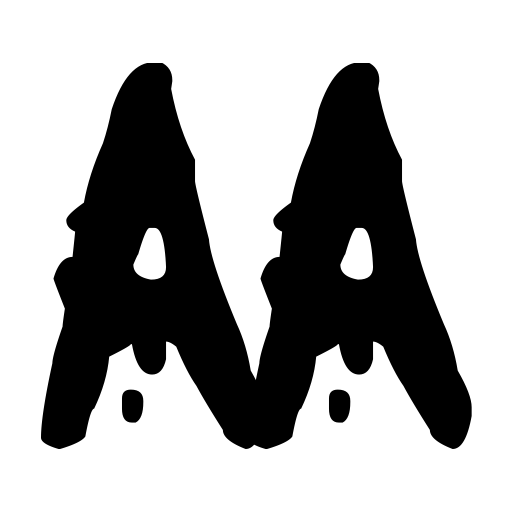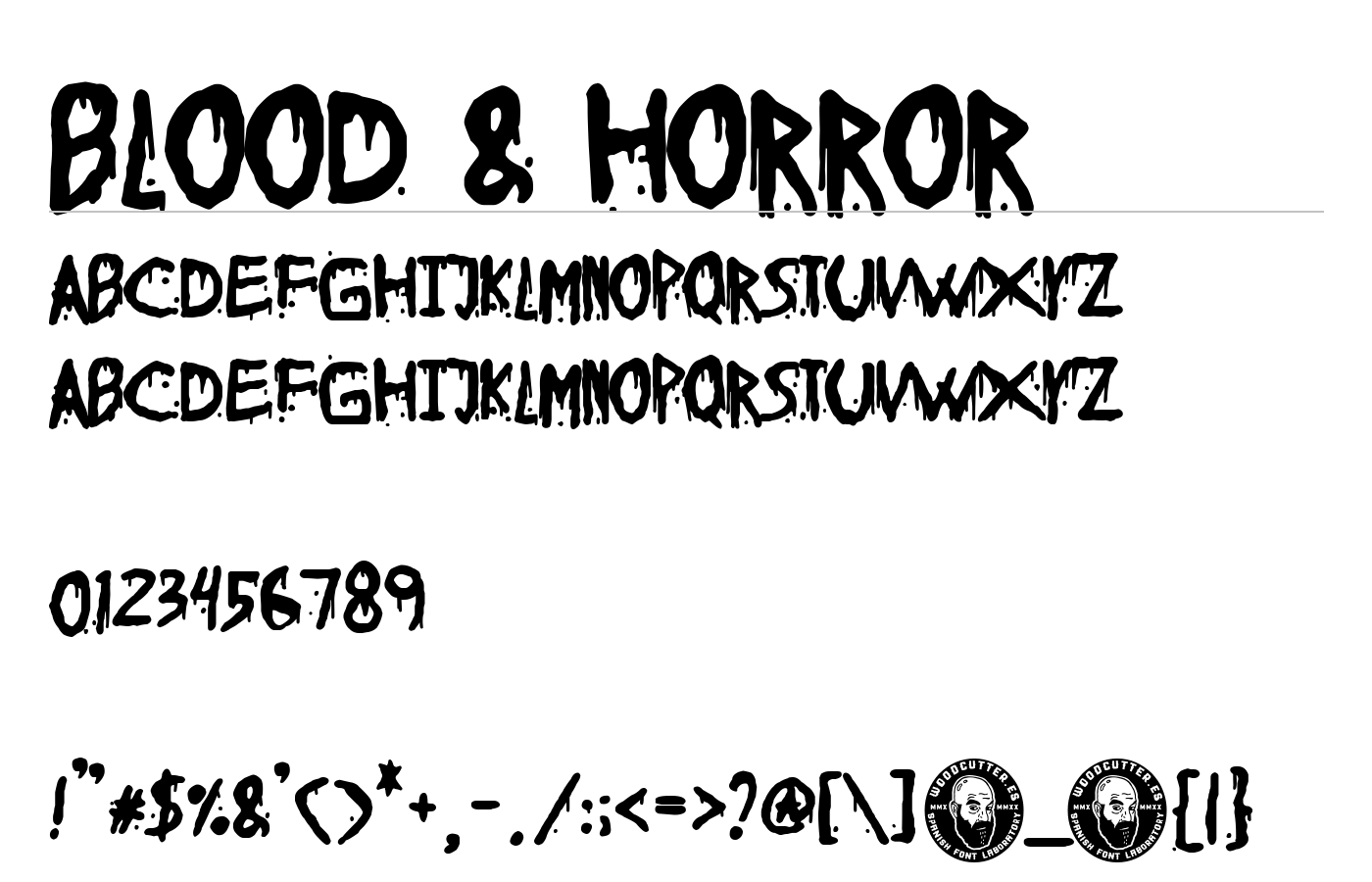
Blood & Horror is a bold, hand-drawn display font with a rough, irregular stroke that evokes a spooky, dripping effect. Its uppercase-only style, combined with uneven letterforms and high contrast between thick and thin areas, makes it perfect for creating eerie or horror-themed designs. This font works best for headlines, posters, and branding that needs a dramatic, frightening vibe.
Blood & Horror Font
About Blood & Horror Font
| Font family | Blood & Horror Font |